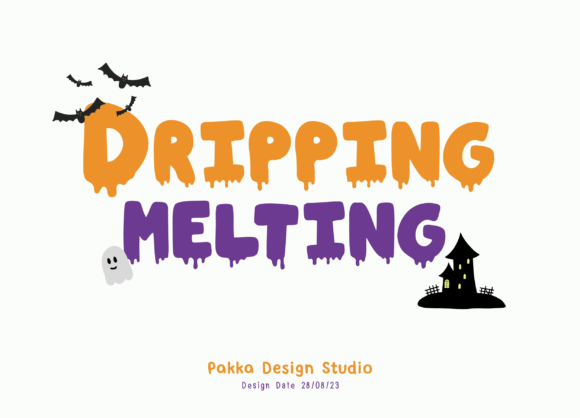
Discover Dripping Melting Font: Where Creativity Melts and Imagination Flows
Step into the realm of artistic expression with the Dripping Melting Font, a display font that oozes with playful creativity and whimsical charm. Crafted by the creative minds at Pakka Design Studio, this font is a testament to the magic of imaginative messiness. Each character seems to melt and drip with a life of its own, capturing the essence of fun experiments and serendipitous surprises.
The Dripping Melting Font isn't just a font; it's an artistic journey that invites you to explore the delightful world of messy, creative fun. Its dripping and melting appearance adds a touch of artistic authenticity to your designs, conveying the spirit of carefree creativity and boundless exploration. It's the perfect choice for projects related to kids, artistry, or anything that embraces the beauty of messy, creative play.
Imagine a world where letters come alive, where they dance and play across the page, dripping with color and dripping with imagination. The Dripping Melting Font brings this world to life, offering a unique and captivating way to express your creativity. It's a font that makes a statement, whether you're designing posters, branding materials, social media posts, or anything in between.
With its playful and whimsical nature, the Dripping Melting Font is sure to capture attention and leave a lasting impression. It's a font that invites interaction, encouraging viewers to explore the creative possibilities that lie within. So, dive into the world of Dripping Melting Font and let your imagination run wild. Discover the magic of creative messiness and unleash the boundless creativity within you.